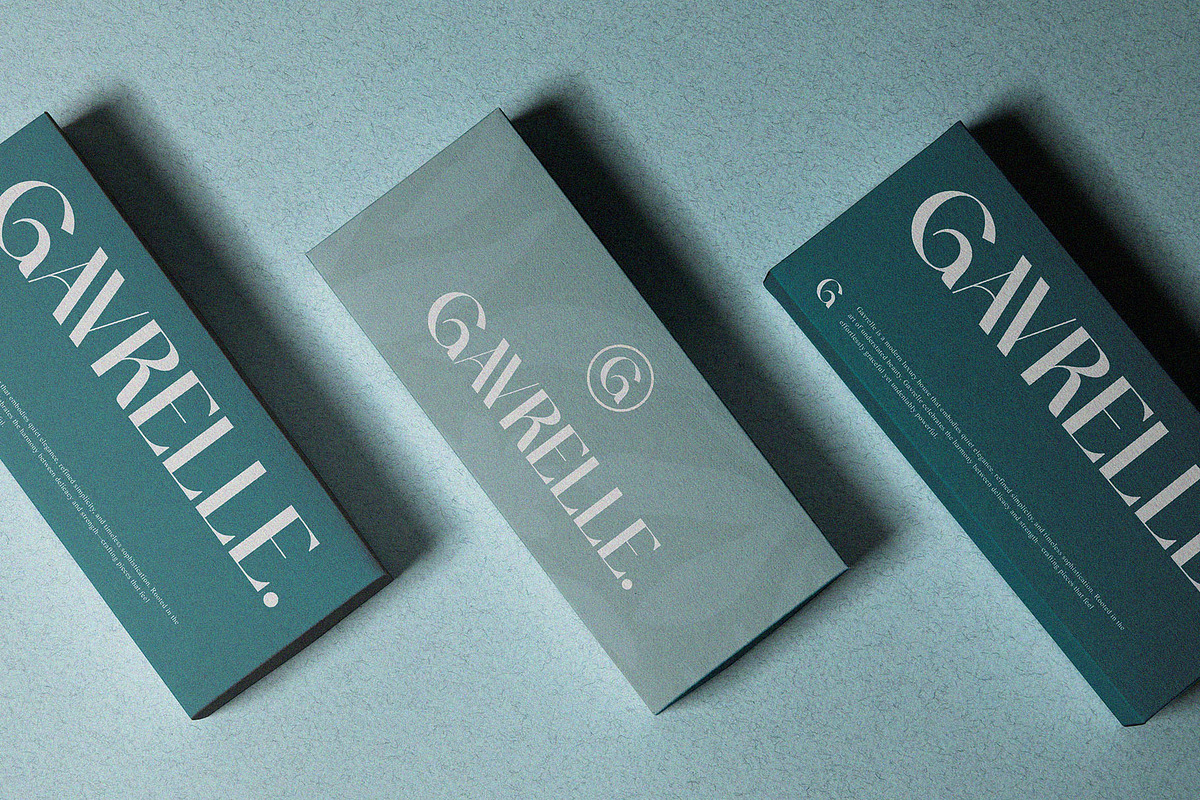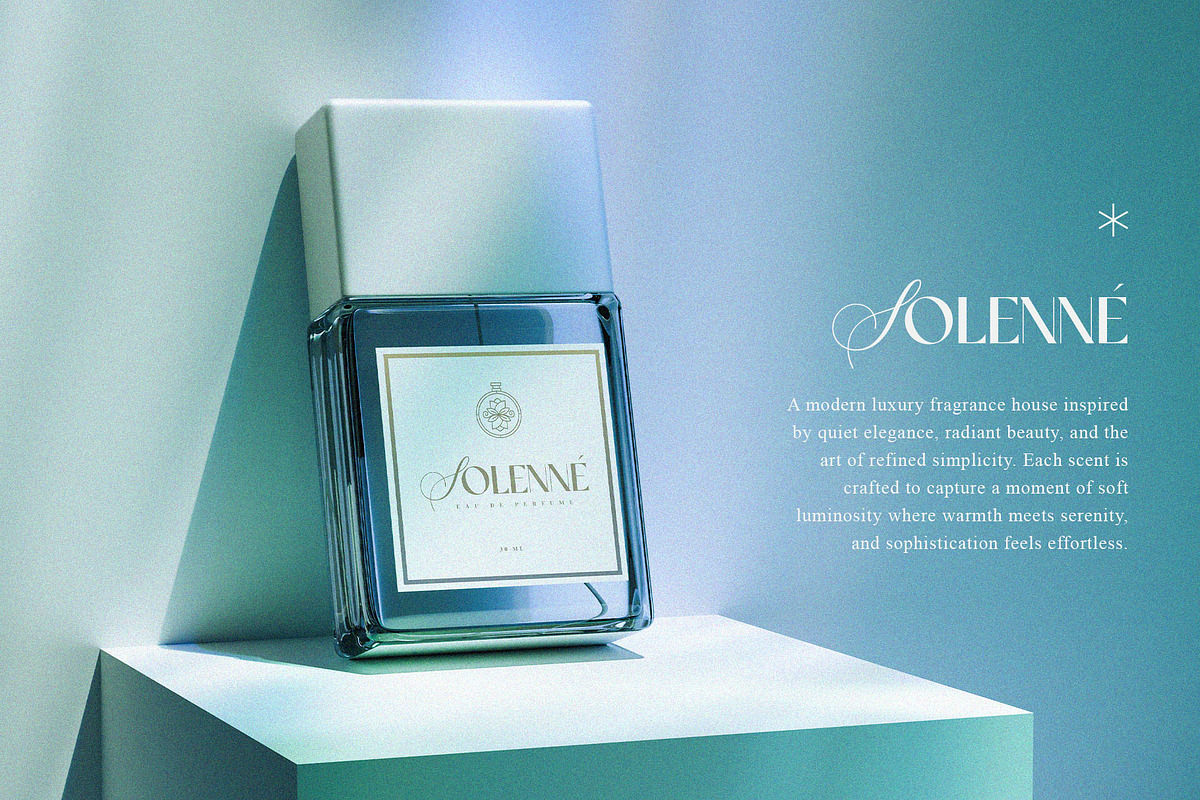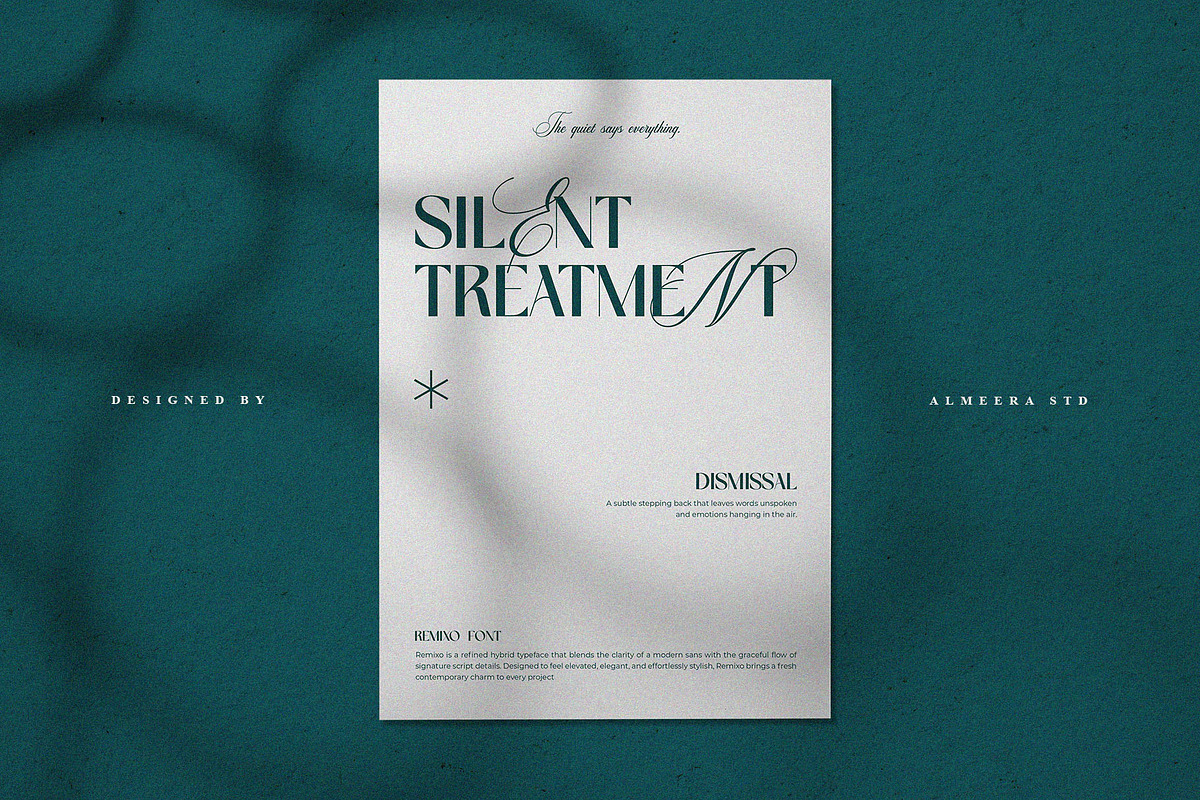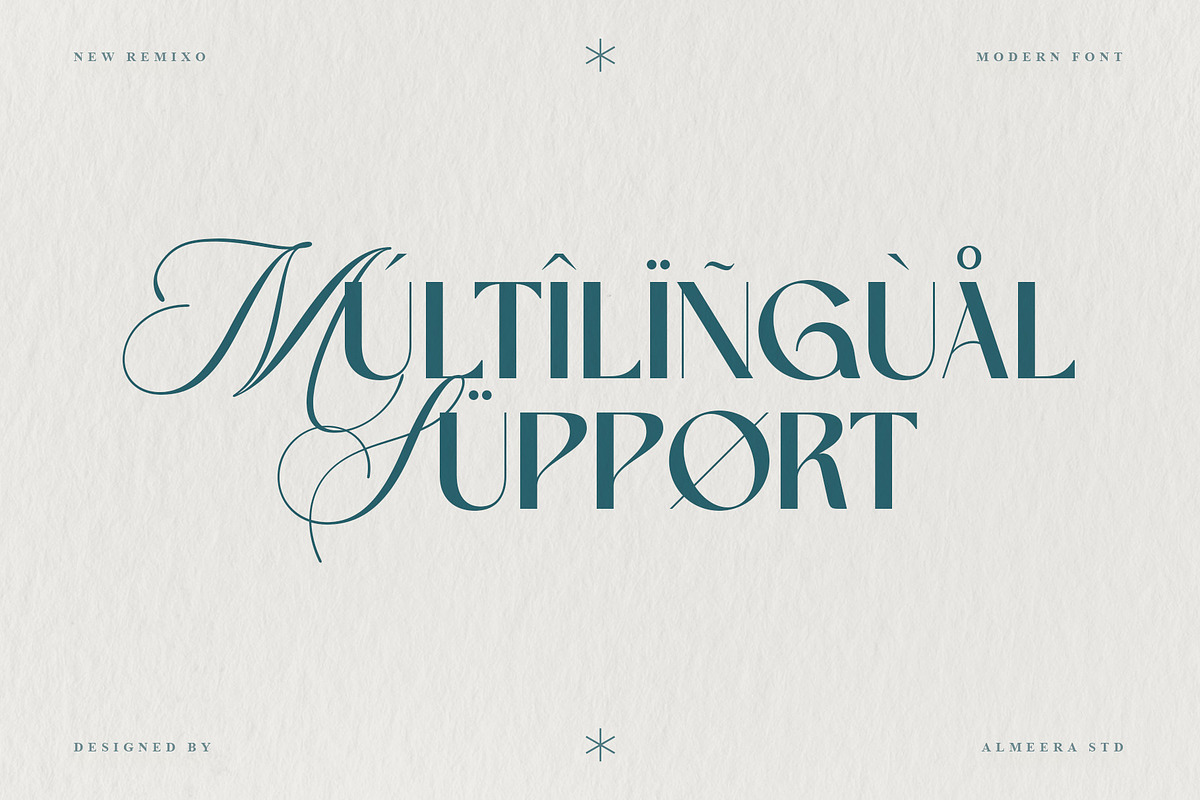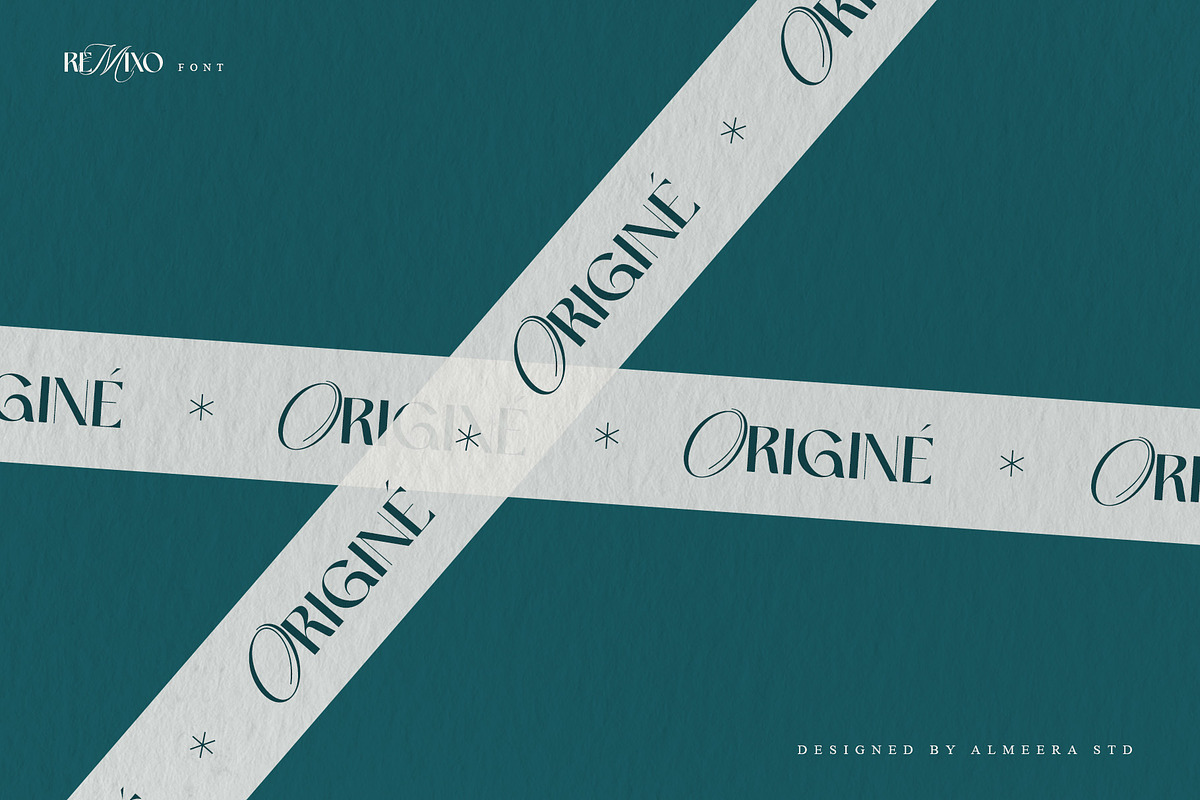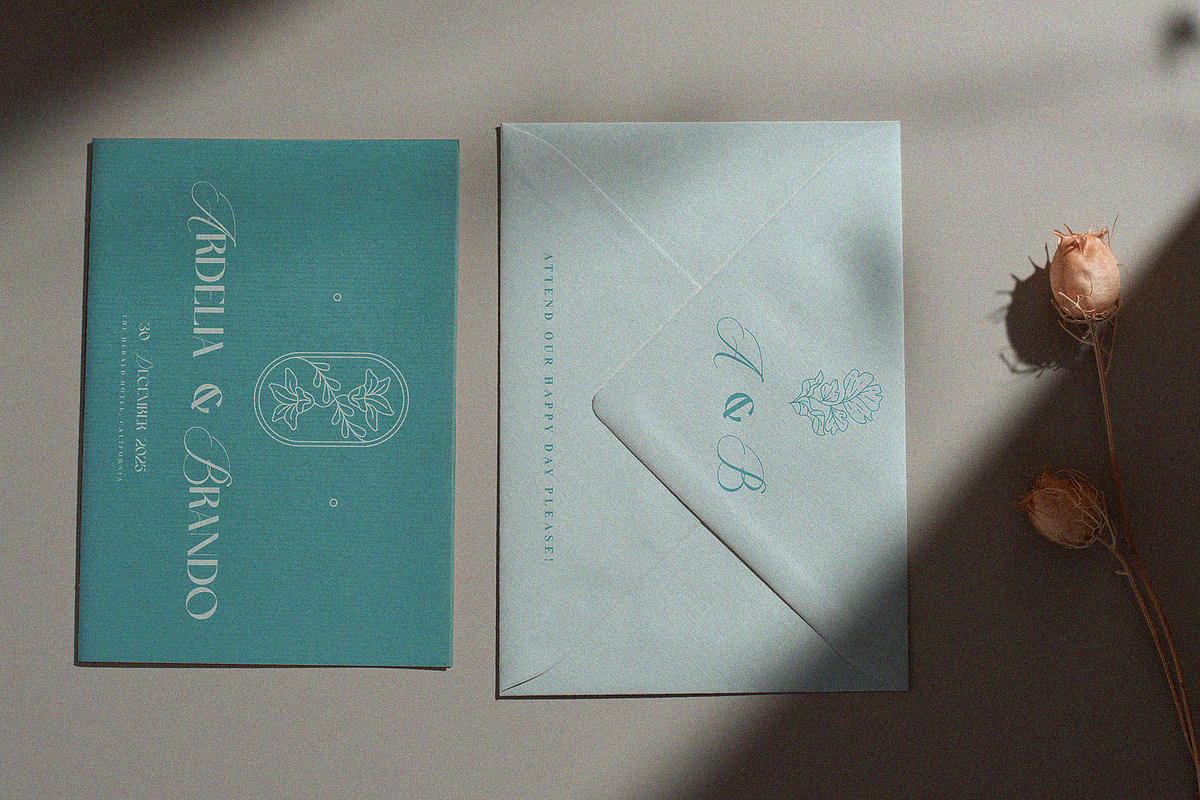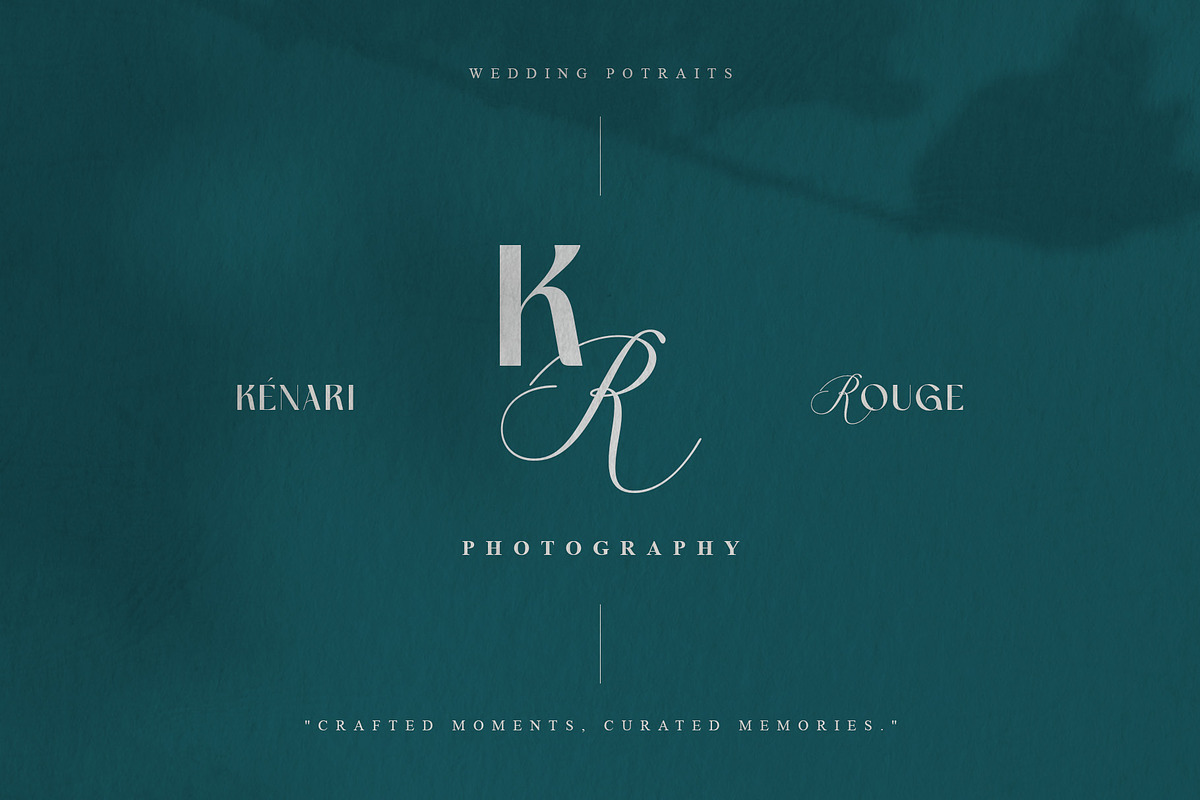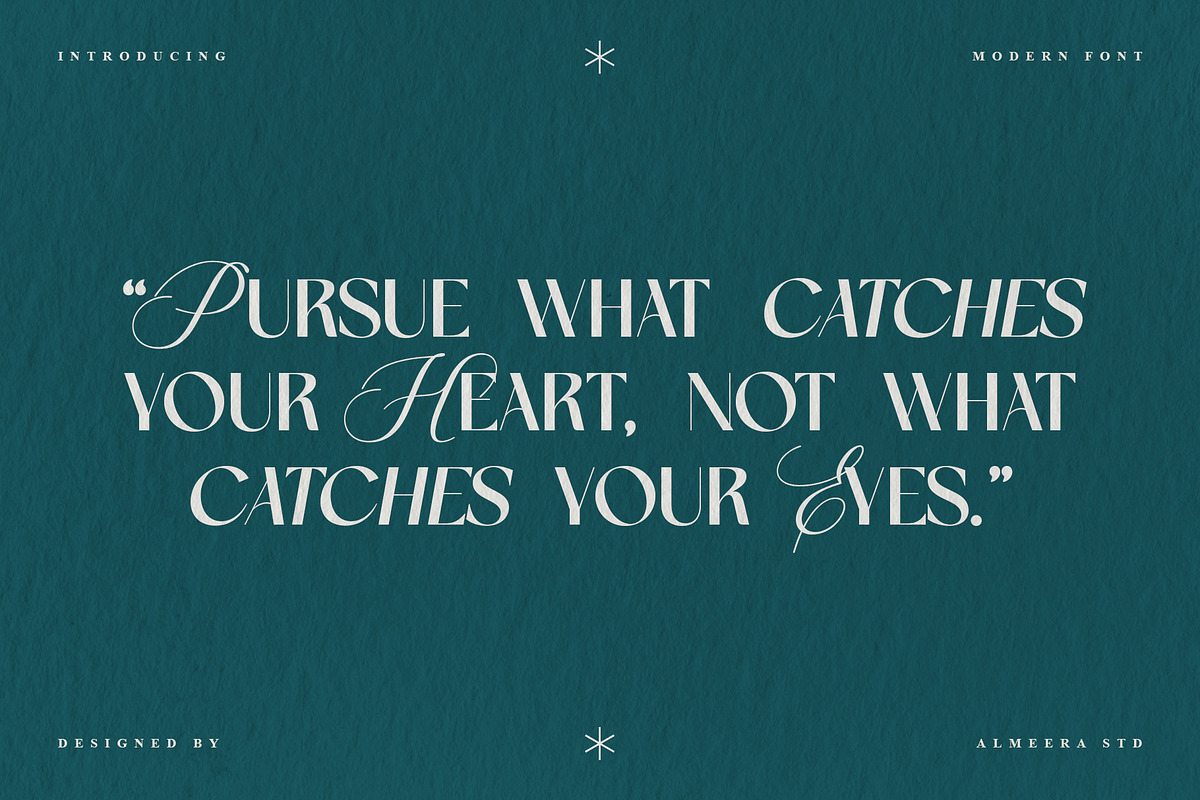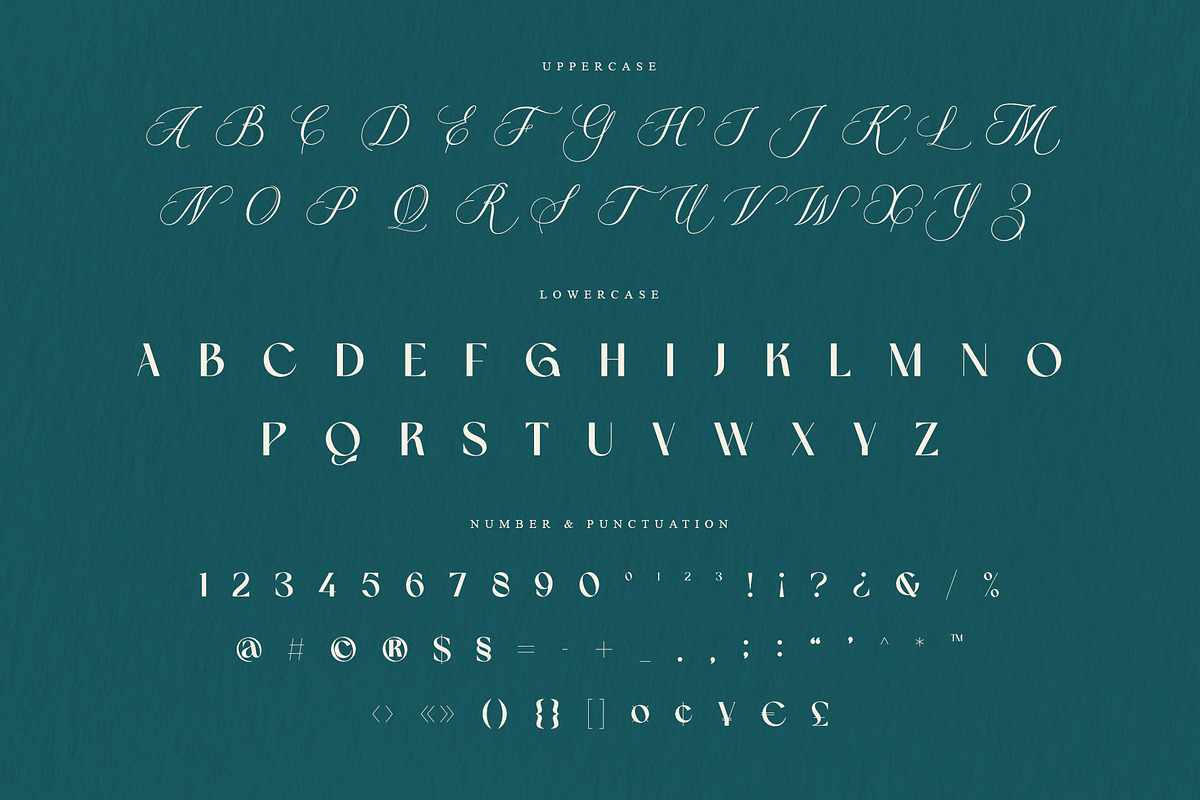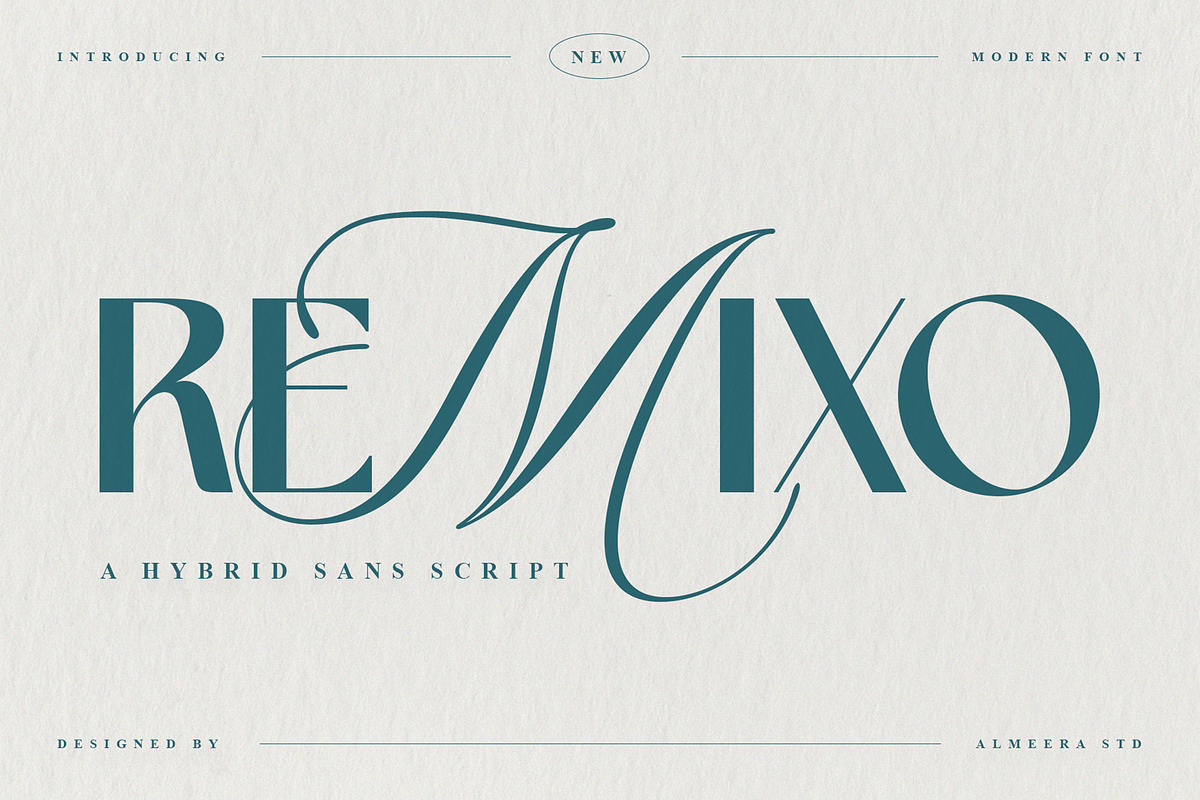
Remixo — Hybrid Sans Script
Remixo is a hybrid sans script font that merges clean sans-serif structure with expressive script strokes. Designed to be modern, flexible, and visually distinctive, Remixo offers a fresh typographic voice suitable for branding, logos, digital projects, headlines, and creative layouts.
The contrast between geometric sans forms and fluid script curves creates a contemporary and memorable look. Remixo is perfect for designers seeking a modern font with personality and balance.
- Numbers, fractions
- Punctuation and symbols